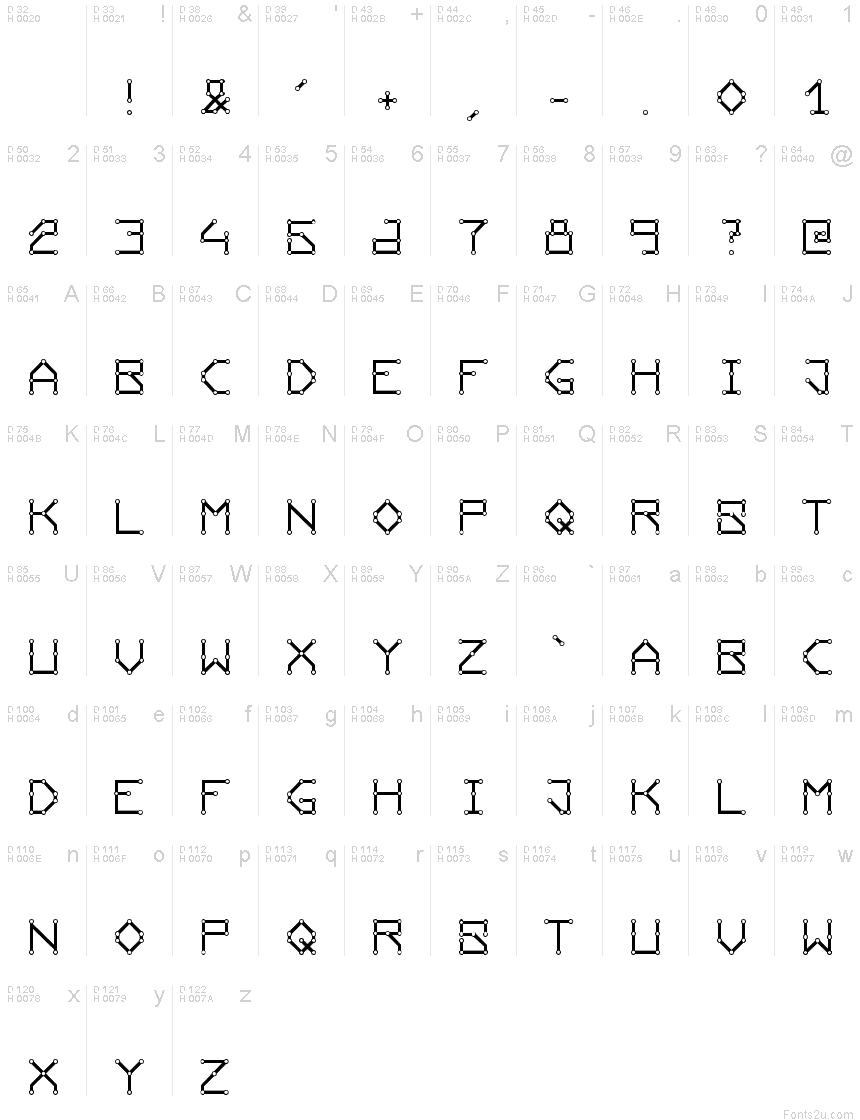
Conducting Paths by wsc is a free techno display font modeled on electronic circuit traces. Its skeletal capitals combine straight tracks, sharp diagonal turns, and round connection points, producing open geometric forms with an engineering-diagram character.
Digital graphics are a natural setting for this lettering, especially interface titles and promotional artwork for electronics or coding events. It suits technology packaging and science museum signage, where the connection points can extend into circuit illustrations and become part of the artwork.